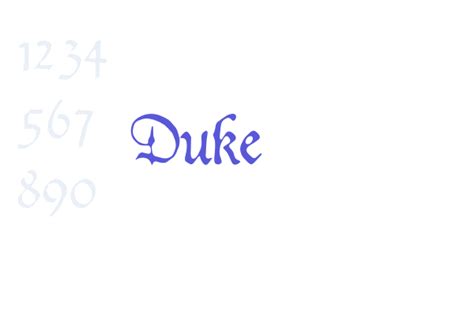
Hey guys! Ever stumbled upon a cool design and wondered what font it was? Well, today we’re diving deep into the Duke font , a typography choice that’s as iconic as it is versatile. If you’re looking to add a touch of classic elegance or a bold, modern flair to your projects, understanding how to download the Duke font is your first step. This guide will walk you through everything you need to know, from where to find it to how to use it like a pro. We’ll cover the different variations, licensing, and some super handy tips to make sure you get the most out of this fantastic typeface. So, buckle up, because we’re about to make font hunting a breeze!
Understanding the Duke Font Family
Before we get into the nitty-gritty of how to download the Duke font , let’s chat about what makes it so special. The Duke font isn’t just a single typeface; it’s often part of a larger family, offering a range of weights and styles that can cater to almost any design need. Think of it like having a whole toolkit of lettering at your fingertips. You’ve got your standard regular weights for body text, bolder options for headlines, and sometimes even elegant italics or condensed versions for special emphasis. This versatility is key, guys. It means you can maintain a consistent brand voice across different elements of your design, from your website’s main content to your social media graphics, without sacrificing readability or aesthetic appeal. Whether you’re designing a professional brochure, a personal blog, or even just a catchy flyer, having a font family that offers depth and variety is a massive plus. The Duke font, in its various forms, often embodies a sense of sophistication and clarity, making it a reliable choice for designers who value both form and function. We’ll explore some of these variations in more detail as we go, helping you identify which ones might be perfect for your next big project. Remember, the right font can completely transform a design, and the Duke family offers a solid foundation for many creative endeavors.
Utilizing the Duke Font in Your Designs: Tips and Tricks
So, you’ve got the Duke font downloaded and installed. Awesome! Now, let’s talk about how to use it effectively to make your designs pop . Guys, a font is more than just letters; it’s a voice, a style, and a crucial element of your visual communication. When using the Duke font, consider its inherent characteristics. Is it modern and sleek? Is it classic and formal? Tailor its application to match the message you want to convey. For headlines, a bold weight of the Duke font can command attention, creating a strong focal point. Pair it with a lighter weight for body text to ensure readability. Mixing and matching different weights within the Duke family can create visual hierarchy and interest without overwhelming your audience. Don’t be afraid to experiment with size and spacing (kerning and tracking). Proper typographic spacing is key to a polished look. Sometimes, just adjusting the space between letters can make a huge difference. If the Duke font has an italic version, use it sparingly for emphasis – think quotes, foreign words, or specific terms you want to highlight. Remember, less is often more. Overusing a font or its variations can lead to a cluttered and unprofessional appearance. Consider the context of your design. A formal invitation might benefit from a more elegant, lighter weight, while a modern tech startup’s branding might call for a bolder, more assertive use. Also, think about color. How does the color you choose interact with the Duke font? Does it enhance its readability or detract from it? Test different color combinations to see what works best. Finally, always preview your design with the font applied before finalizing. Get a second opinion if possible. Sometimes stepping away and coming back with fresh eyes can reveal areas for improvement. Using the Duke font strategically will elevate your designs from good to great.
Exploring Variations and Licensing of the Duke Font
Let’s get a bit more granular about the Duke font and its ecosystem. As I mentioned earlier, ‘Duke’ often refers to a font family , and understanding its variations is key to unlocking its full potential. You might find the Duke font in weights ranging from Thin, Light, Regular, Medium, SemiBold, Bold, to Black. Each weight has a distinct personality and intended use. The lighter weights are excellent for captions or subheadings where you want a subtle presence, while the bolder weights are perfect for impactful headlines or logos. Beyond weights, you might also encounter different styles. Some versions might have ‘Italic’ or ‘Oblique’ counterparts, adding a dynamic feel. Others could include ‘Condensed’ or ‘Extended’ variations, which are fantastic for fitting text into specific spaces, like narrow columns or wide banners. Some sophisticated families even offer stylistic alternates or ligatures, which are special character combinations that can add unique flair to your typography. When you download the Duke font , pay close attention to the specific files you’re getting. Does it include all these variations, or just a basic set? This often depends on whether you’re downloading a free version or purchasing a professional package.
When to Choose the Duke Font for Your Project